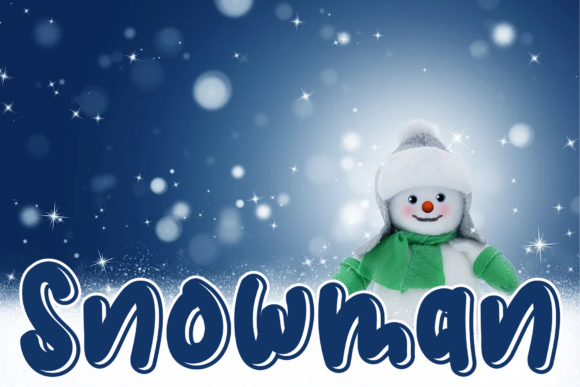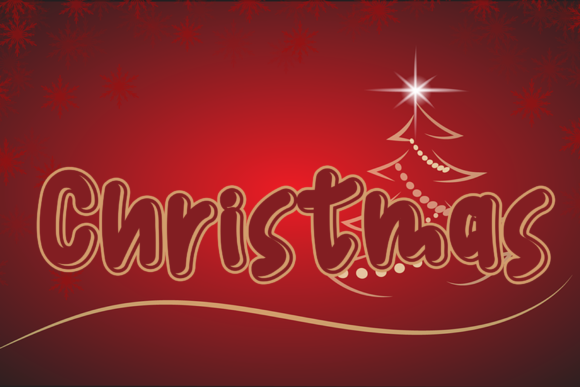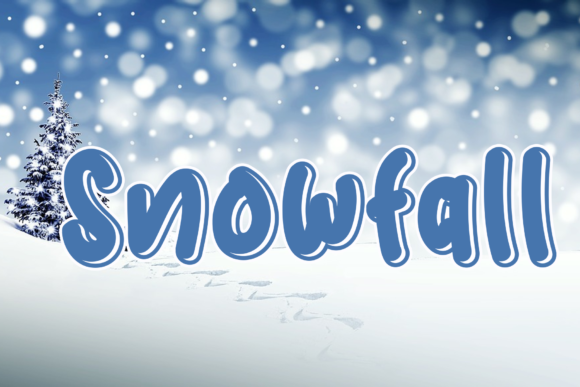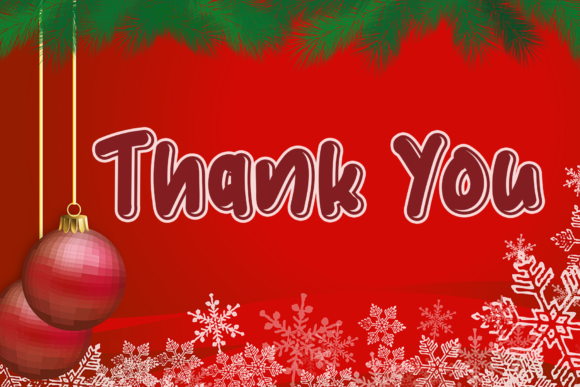
Crete Snow Font
About Crete Snow Font
Crete Snow is a cute and friendly display font. Whether you use it for cartoon related designs, children games or just any creation that requires a lovely touch, this font will be an amazing choice.